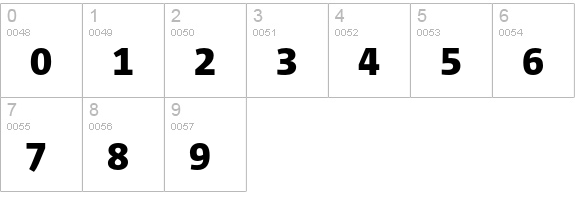
Corpid Caps Heavy Font Details
Corpid Caps Heavy is a heavy, high-impact variant in the Corpid typeface family \xE2\x80\x94 well suited to high-impact headlines, posters, and display advertising.
Corpid Caps Heavy font is a bold and commanding typeface that exudes strength and authority. Its clean lines and solid shapes make it perfect for titles, headlines, and other prominent text in your designs. The font's sharp edges give it a modern and sophisticated look, while its heavy weight ensures maximum impact. Best of all, Corpid Caps Heavy font is available for free download at FontsMarket.com. You can easily add this versatile font to your collection without any cost, making it a valuable asset for any designer or typographer. Don't miss out on the opportunity to enhance your projects with the striking presence of Corpid Caps Heavy font – download it today and start creating impactful designs!